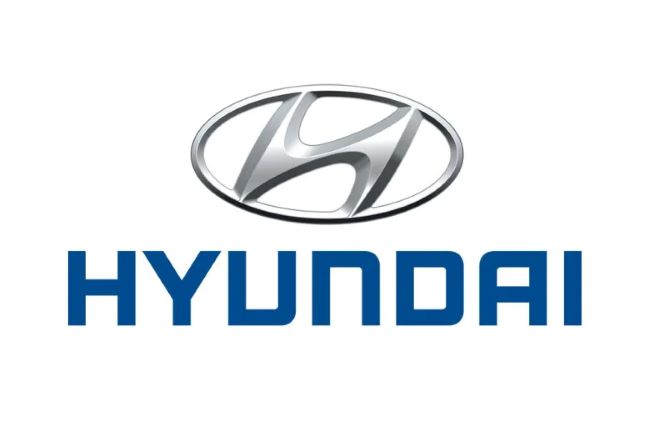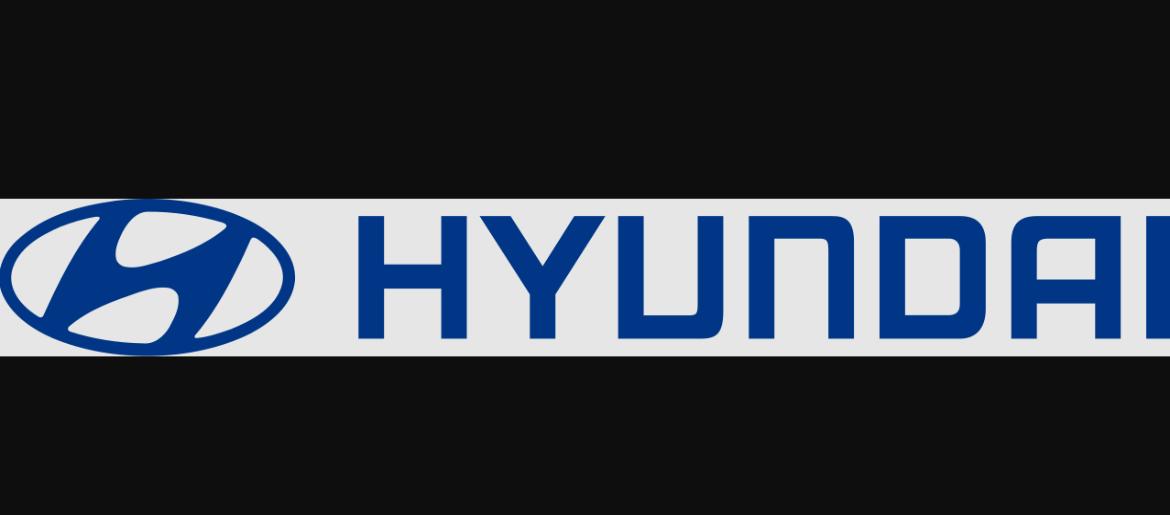
Hyundai Font
Hyundai Font forms a vital part of the brand’s design language, expressing its dedication to innovation, precision, and progress. The logo typeface is a customized geometric sans-serif, engineered to deliver a sense of strength and balance. Its uniform stroke width and clean curves contribute to excellent legibility, making it effective across print, signage, and digital interfaces.